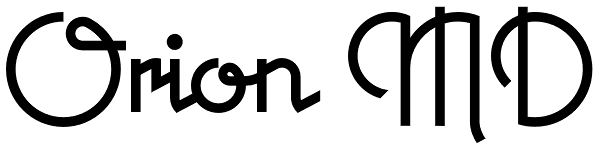
Orion MD
A font where "each word that's set approaches becoming its own logo" is how some have described this unique typeface. Originally inspired by an enamel sign he picked up at a Paris flea market, Michael Doret says that the seven letters contained in...